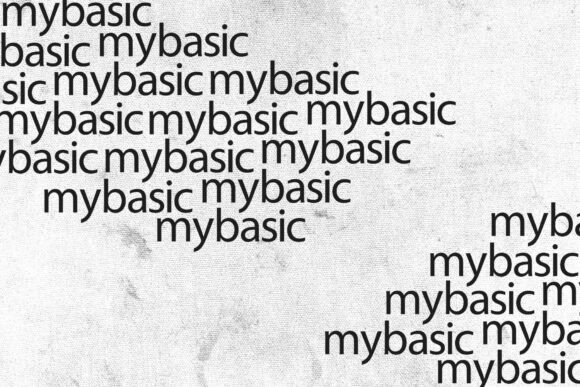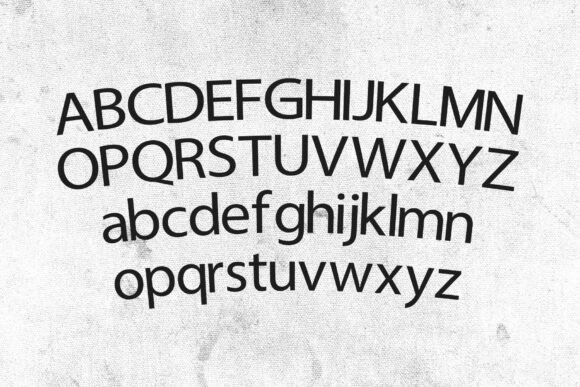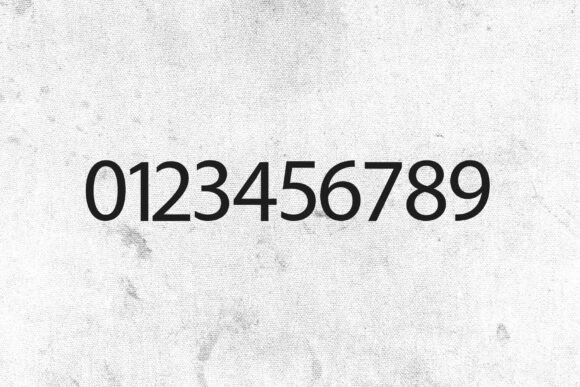
Introduction to Mybasic Font
You know that moment when you’re working on a creative project and you can’t quite find the right font to bring your vision to life? The words feel cluttered, the design feels awkward, and you’re about to lose your mind? That’s when you stumble upon a game-changer – a font that effortlessly elevates your design and makes everything look crisp and clean. For many designers, that game-changer is the Mybasic Font.
This high-quality font is a design resource like no other, offering a free download that’s perfect for anyone looking to add a touch of sophistication to their work. With its transparent background and clean lines, the Mybasic Font is the ultimate tool for creating professional websites, modern branding, and clean print layouts that exude understated elegance.
Key Features of Mybasic Font
- High-quality design resource with a unique, modern aesthetic.
- Perfect for designers and artists working on a wide range of creative projects, from digital art to print media.
- Mybasic Font is a versatile design resource that can be easily integrated into various design software and applications.
- Supports a wide range of languages, making it a valuable resource for designers working on international projects.
Honest Review: Mybasic Font
As a designer, I’m always on the lookout for high-quality design resources that won’t break the bank. That’s why I was excited to try out the Mybasic Font. This free download has quickly become a go-to for my creative projects.
What works well is the font’s versatility. It’s clean and simple, yet still manages to pack a punch in terms of visual impact. I’ve used it for everything from headings to body text, and it always looks great. ✨
Here are some of the key features I love:
- Works well in a variety of font sizes and styles
⚠️ One limitation I’ve noticed is that the font is not as customizable as some other options. While it’s not a deal-breaker, it’s something to keep in mind if you’re looking for a font that can be heavily modified.
Overall, I’m really impressed with the Mybasic Font. It’s a great addition to any designer’s toolkit, and it’s a must-try for anyone looking for a high-quality, free design resource.
Tips for Getting the Most Out of Mybasic Font
Also, consider using Mybasic Font in combination with other design elements to create a unique and eye-catching design.
Common Use Cases for Mybasic Font
Mybasic Font is commonly used in logos, business cards, and other marketing materials where a clean and modern design is required.
It’s also a great choice for creative projects, such as infographics and presentations, where a high-quality font is essential.
Alternatives to Mybasic Font